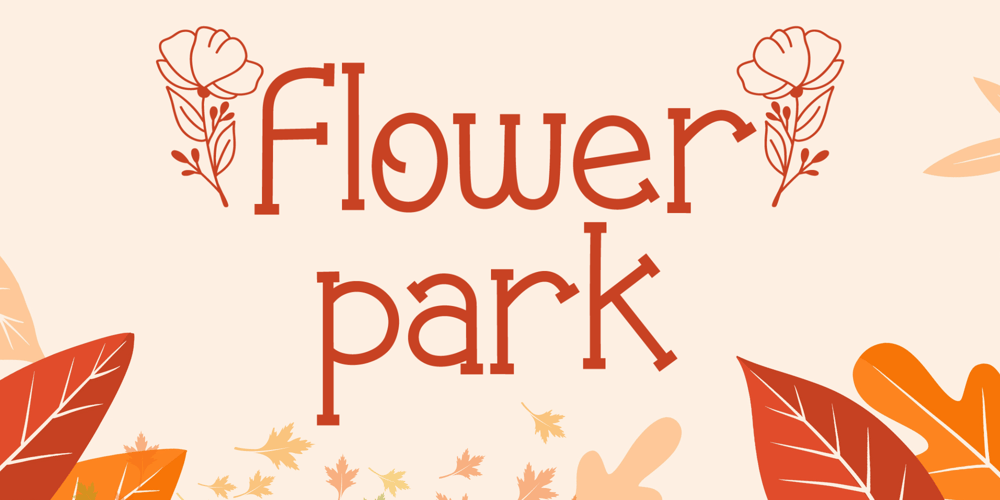
Flower Park Font Family was designed by Agung Eko Nugroho and published by AEN Creative Studio. Flower Park contains 2 styles and family package options. Flower Park is a sweet and playful display font. This font is perfect for the autumn theme, floral design, and nature theme, fitting a wide range of contexts. Add it to your creative ideas and notice how it makes them stand out!